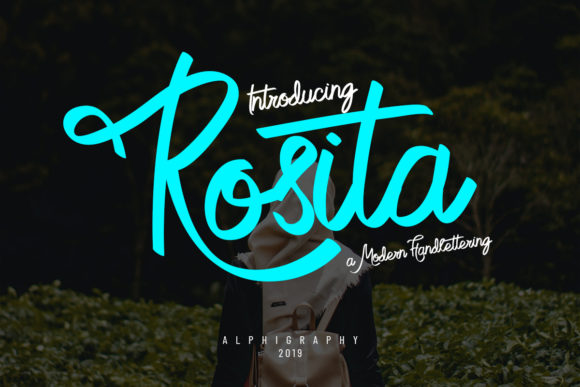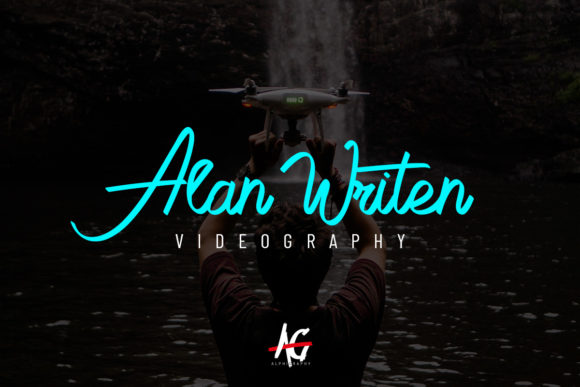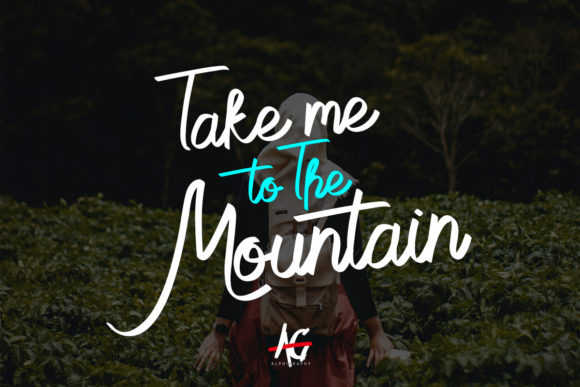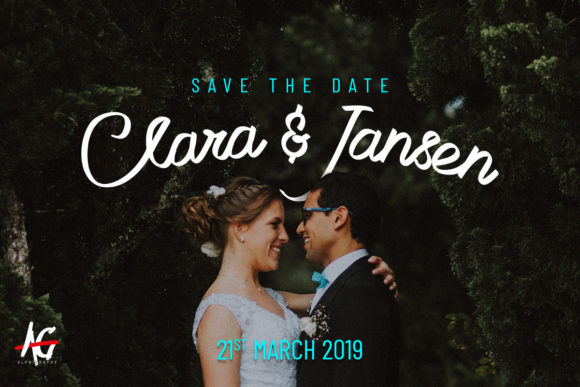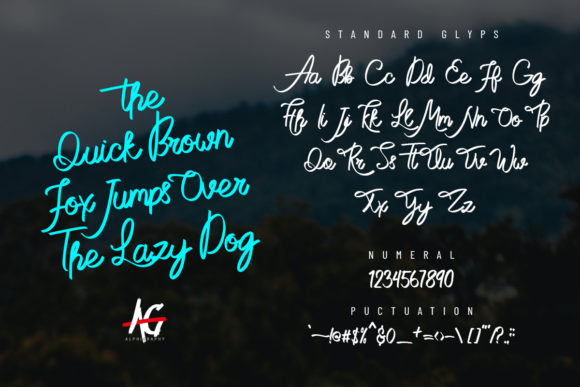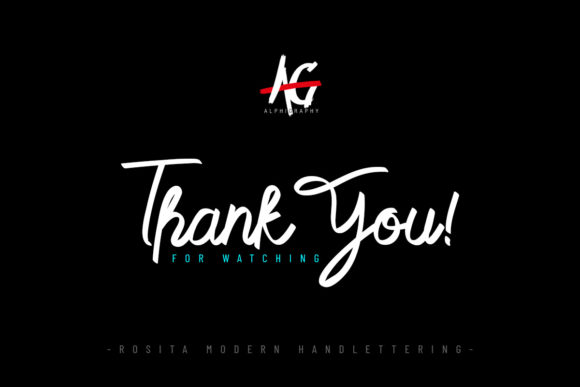
Rosita Font
About Rosita Font
The Rosita is an elegant and beautiful script font. Its allowing you to create beautiful hand-made typography in an instant! It can be used for branding, logos, brochures, business cards, wedding stationary invitations, and every other design which needs a handwritten touch.